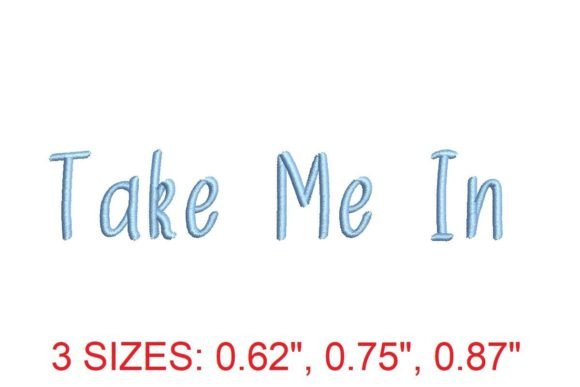
Take Me In Embroidery Font
The Take Me In Embroidery Font is a versatile and stylish addition to any embroidery enthusiast's toolkit. Designed with precision and artistry, this font offers a unique blend of elegance and functionality that can elevate your embroidery projects from ordinary to extraordinary. Whether you're crafting personalized gifts, branding materials, or decorative items, the Take Me In font provides a fresh and modern aesthetic that stands out in both personal and professional settings.
Aesthetic Versatility for Every Project
What sets the Take Me In Embroidery Font apart is its ability to adapt to a wide range of design needs. The font features clean lines, subtle curves, and a refined structure that makes it suitable for both minimalist and intricate designs. Its elegant yet approachable style allows it to seamlessly integrate into various themesāfrom vintage-inspired pieces to contemporary creations.
One of its most notable qualities is the seamless stitching pattern. This ensures that the embroidery flows smoothly without unnecessary bulk, making it ideal for use on delicate fabrics or small surfaces. The font also includes detailed stitch outlines that enhance the visual appeal of each letter, giving your designs a polished and professional look.
From Personal Projects to Professional Branding
The Take Me In Embroidery Font is not limited to personal use. Its versatility makes it an excellent choice for professionals across multiple industries. For instance, businesses can incorporate this font into their branding materials such as logos, signage, and promotional items. The fontās refined appearance adds a touch of sophistication that aligns well with upscale brands or creative ventures looking to make a statement.
In educational settings, the font can be used to create visually engaging classroom materials, name tags, or custom stationery. Teachers and educators often seek fonts that are both readable and attractive, and the Take Me In font delivers on both fronts. Similarly, bloggers and content creators can utilize this font to add a distinctive flair to their digital content, whether through embroidered badges, social media graphics, or physical merchandise.
Efficiency and Usability for All Skill Levels
For beginners, the fontās clear and consistent structure makes it easier to navigate the learning curve. The included sizing and stitch information provide a solid foundation for understanding how each character will appear on fabric. For more advanced users, the font offers enough detail and customization options to support complex and creative projects.
Real-World Applications and Recommendations
The Take Me In Embroidery Font has been successfully used in a variety of real-world applications. For example, a local boutique used this font to create custom name tags and signage for their store, resulting in a cohesive and branded look that enhanced customer engagement. Another user, a freelance graphic designer, integrated the font into a series of embroidered business cards, which helped establish a more personal and memorable brand presence.
For those looking to maximize the fontās potential, consider experimenting with different color combinations and fabric textures. Pairing the font with contrasting threads or using it on textured fabrics can create striking visual effects. Additionally, combining the font with other embroidery elementsāsuch as patterns or monogramsācan lead to more dynamic and layered designs.
Conclusion: A Must-Have for Creative Professionals
The Take Me In Embroidery Font is more than just a design toolāit's a creative asset that enhances both the aesthetics and functionality of your embroidery projects. With its refined style, ease of use, and wide range of applications, this font is an invaluable addition to any creatorās toolkit. Whether you're working on a personal project or a commercial endeavor, the Take Me In font offers the versatility and quality needed to bring your ideas to life.